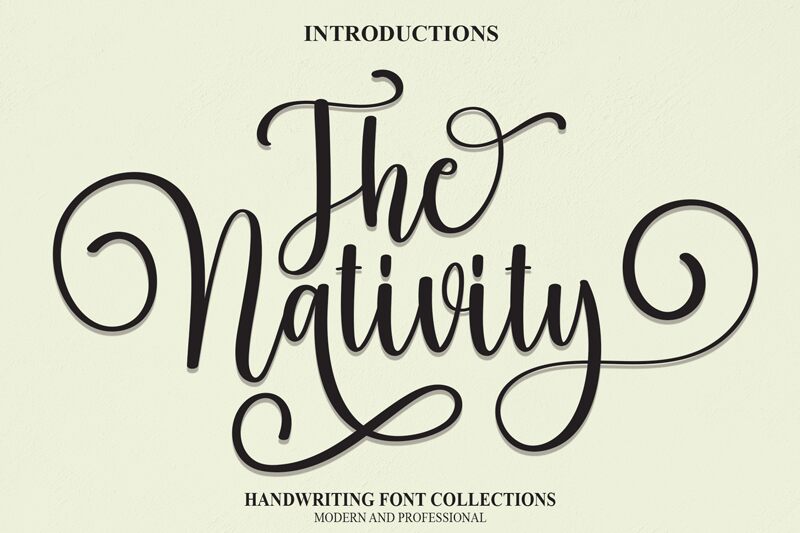
The Nativity
The Nativity, a stunning calligraphy font designed by scratchones, adds a touch of elegance to any project. With its semi-light weight, this font is perfect for creating stylish and sophisticated designs such as wedding invitations, greeting cards, and branding materials. The intricate strokes and curves of The Nativity create an authentic handcrafted feel that is sure to impress. Whether you're designing for print or web, this font will make your text pop with style and grace. Upgrade your design game with The Nativity - the perfect choice for any project that demands a touch of luxury!
the latest style letters are perfect for wall displays, wedding invitations, social media post logos, advertisements, product packaging, product designs, labels, photography, watermarks, invitations, stationery, and any project that requires taste handwriting.